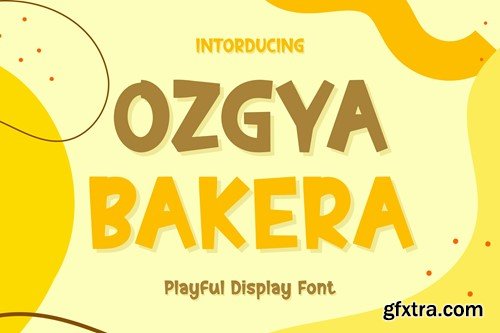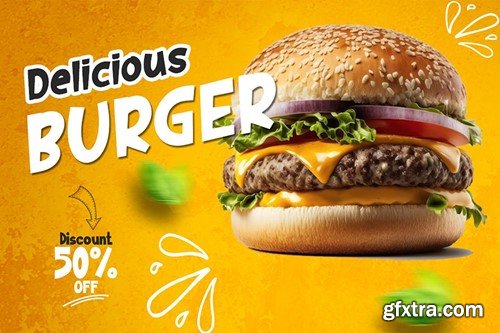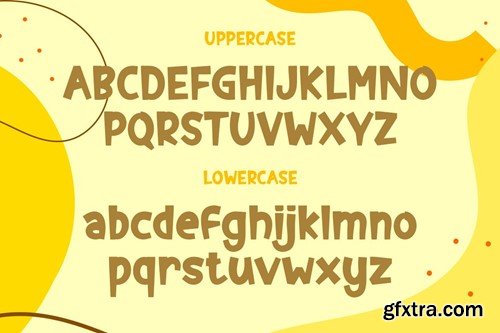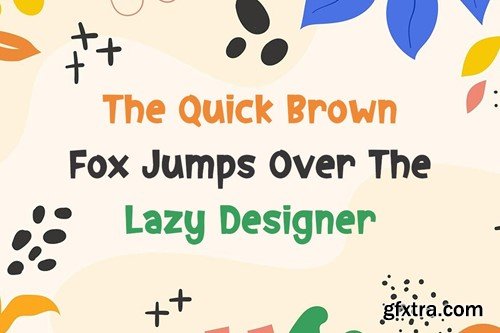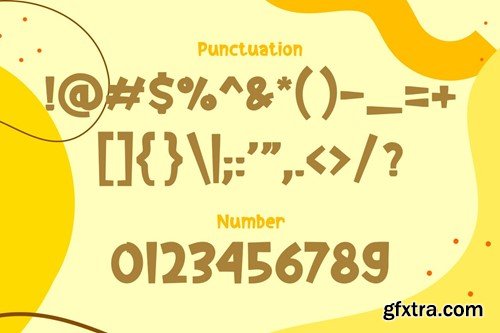
奥兹加巴雷 - 玩趣展示字体
OZGYA BAKERA - Playful Display Font
OZGYA BAKERA is a unique display typeface perfect for titles, large text, branding, logotypes & graphic design purposes such as posters, pamphlets, and advertisements. This letter font can be a great choice for creating amazing logos, promotional content, and marketing presentations that can bring uniqueness and freshness at its best. FEATURES TTF/OTF/WOFF Uppercase and Lowercase letters Numbering and Punctuations Support Adobe Illustrator, Adobe Photoshop, Adobe InDesign, also works on Microsoft Word For buyers, thank you for using our font. We hope our work can help you create creative ideas.